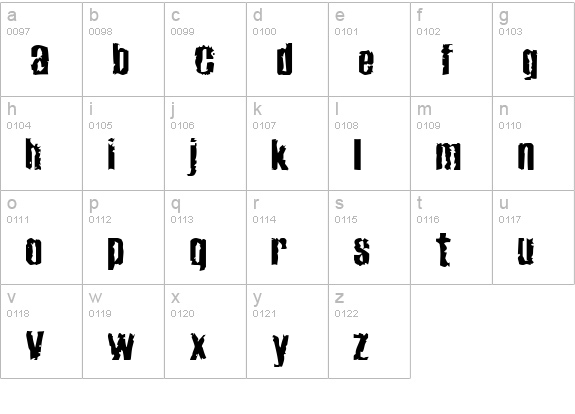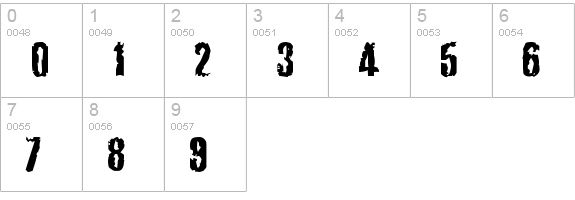
Cabeen Crappy Font Details
Introducing Cabeen Crappy font, a whimsical and playful typeface that adds a touch of fun and quirkiness to any project. With its unique and irregular letterforms, this font brings a sense of spontaneity and creativity to your designs. Cabeen Crappy font is perfect for those looking to break away from the traditional and embrace a more unconventional style. Whether you're designing a poster, logo, or social media graphics, this font will surely make your message stand out from the crowd. What's even better is that Cabeen Crappy font is free! Yes, you read that right. This incredible font is freely available to download at FontsMarket.com. We believe that creativity should be accessible to all, and that's why we're offering this font for free. So go ahead, unleash your imagination and create something truly unique with Cabeen Crappy font. Don't let the name fool you – while it may be called "Crappy," this font is anything but. Its imperfect and quirky nature adds character and personality to your designs, making them memorable and captivating. So why settle for ordinary when you can embrace the extraordinary? Download Cabeen Crappy font now from FontsMarket.com and let your creativity run wild. Whether you're a professional designer or a hobbyist, this font is sure to inspire and elevate your projects to new heights. Don't miss out on this amazing opportunity to add a touch of whimsy to your designs – get Cabeen Crappy font today!